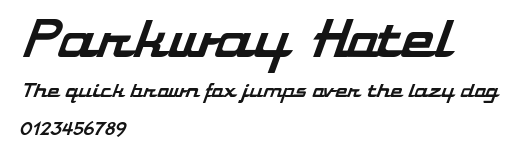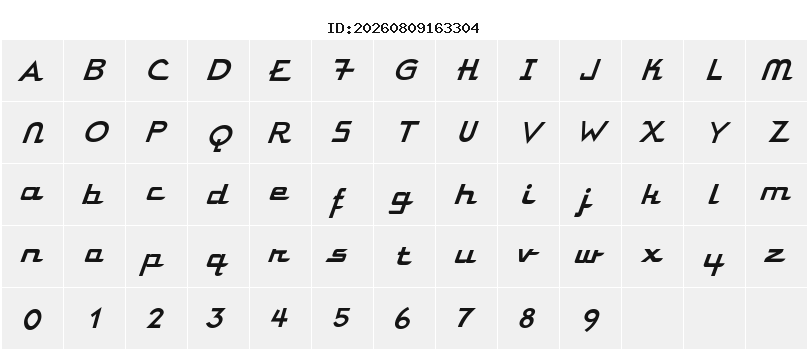
• Font Name: Parkway Hotel
• Full Font Name: Parkway Hotel
Parkway Hotel.ttf is a modern, elegant sans-serif font designed for ultimate readability and visual harmony. Perfect for branding, headlines, web design, and print materials.